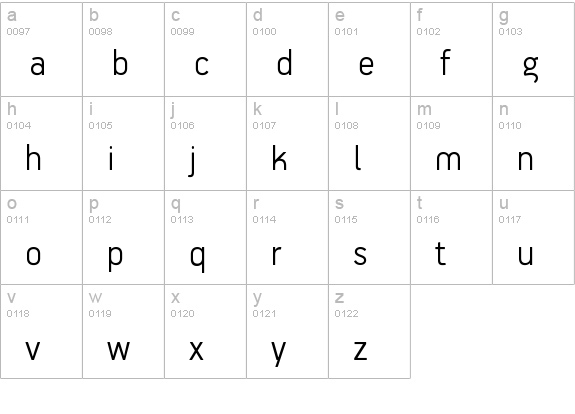
PFHandbookPro-Light is a refined, elegant variant in the PFHandbookPro typeface family \xE2\x80\x94 well suited to elegant body text, refined sub-headings, and luxury branding.
PFHandbookPro-Light is a modern and elegant sans-serif font that exudes sophistication and versatility. With its clean lines and balanced proportions, this typeface is perfect for a wide range of design projects, from branding to editorial layouts. The light weight of PFHandbookPro-Light adds a touch of subtlety and refinement to any text, making it ideal for conveying a sense of lightness and sophistication. Best of all, PFHandbookPro-Light is available for free download at FontsMarket.com, allowing designers and creatives to easily access this high-quality font for their projects. Whether you're working on a website, poster, or any other design project, PFHandbookPro-Light is sure to elevate your typography and bring a touch of modern elegance to your work. Download it today and see the difference it can make in your designs.